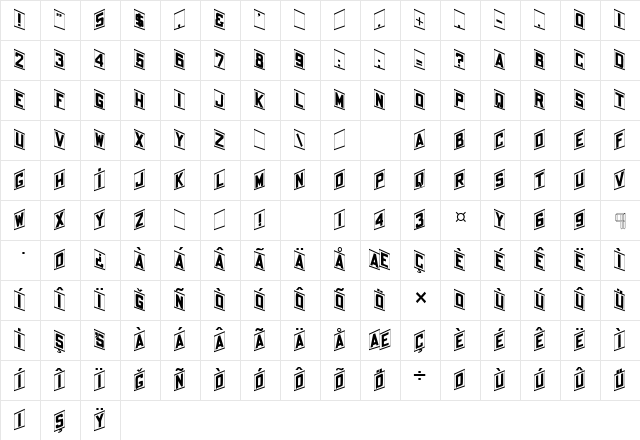
Synder Normal
Design Context for Synder Typeface
Synder is a composed and adaptable typeface that performs quietly and consistently across a wide range of design contexts.